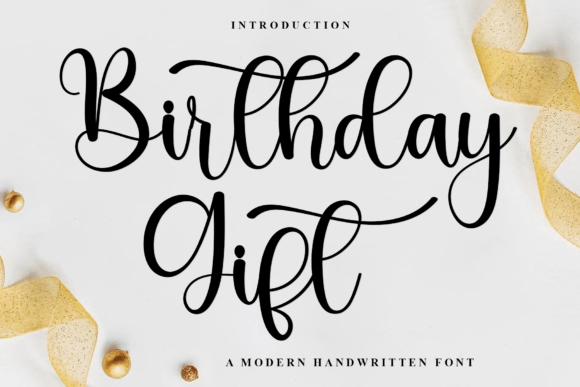
Adding a Touch of Magic to Your Designs
It’s that time of the year when creativity knows no bounds, and the festive spirit takes over. As designers, we’re always on the lookout for the perfect font to capture the essence of the holiday season. And that’s where the Birthday Gift Font comes in – a merry and enchanting typeface that adds a touch of whimsy to your designs.
With its decorative elements and nostalgic flair, the Birthday Gift Font is perfect for greeting cards, gift tags, and holiday-themed projects. It’s a game-changer for designers who want to bring a cheerful and festive ambiance to their words. And the best part? It’s PUA encoded, making it easy to access all the amazing glyphs and ligatures with ease. Whether you’re a seasoned designer or just starting out, the Birthday Gift Font is sure to add a touch of magic to your typography.
Birthday Gift Font Key Features
- Font Family: Birthday Gift Font is a unique, hand-drawn font designed specifically for birthday-related content.
- Unique Characteristics: The font features a playful, celebratory feel, with intricate details and flourishes that make it perfect for birthday invitations, party decorations, and other festive content.
Birthday Gift Font Review
First off, I have to say that I was excited to try out the Birthday Gift Font. As a designer, I’m always on the lookout for unique and creative fonts to add some personality to my projects. ✨ The font’s playful and cursive style is perfect for designing birthday invitations, party decorations, or any other celebration-related material.
Here are some things that I think work well with this font:
- ✨ Easy to read: Despite its cursive style, the font is still easy to read, making it perfect for large-scale prints or digital displays.
- ✨ Versatile: The font can be used for a variety of projects, from birthday parties to weddings and other celebrations.
- ⚠️ Limited language support: The font only supports a limited range of languages, which may be a problem if you need to design for a global audience.
- ⚠️ Not ideal for small text: Due to its cursive style, the font may not be the best choice for small text or fine details.
Overall, I think the Birthday Gift Font is a great addition to any designer’s toolkit. While it may have some limitations, its customization options, ease of readability, and versatility make it a valuable resource for any project.
Use the Birthday Gift Font to add a personal touch to birthday invitations, party decorations, and gift tags.
Combine the font with colorful graphics and images to create a festive atmosphere.
Experiment with different font sizes and colors to create visual interest and emphasis.
Birthday party invitations
Gift tags and cards
Party decorations and banners
Personalized birthday messages and quotes
Alternatives to Birthday Gift Font for Designers
Great Vibes is a modern, elegant script font perfect for creating a celebratory atmosphere. It features flowing connections between letters and a relaxed feel, making it ideal for wedding invitations, party invitations, and special occasion designs.
Compared to Birthday Gift Font, Great Vibes has a more refined and sophisticated look, making it suitable for high-end events and occasions.